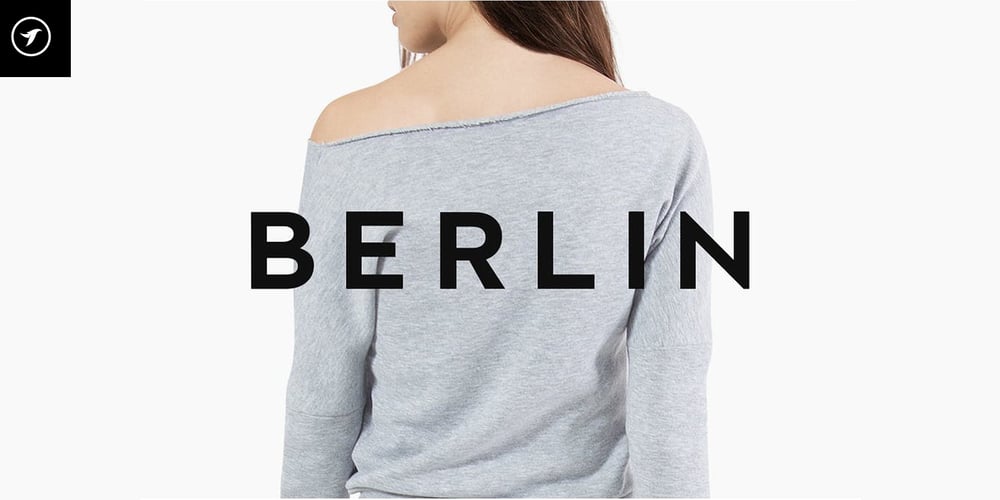
Berlin Nuvo Font Family was designed by Jean Johnson and published by Designova. Berlin Nuvo contains 8 styles and family package options. BERLIN is a modern Sans Serif headline typeface inspired by some classic geometric typefaces that keep the minimalism at it’s level best. The concept of BERLIN is based on our SIGNIA PRO typeface which was released earlier, but we have added more perfection and attention to the details.BERLIN will be best suited for creating nicely looking headlines (add some letter spacing and it will amaze you) that you always find in fashion web stores and minimal portfolio websites.